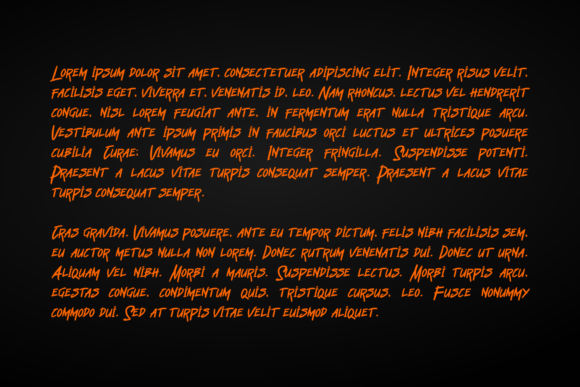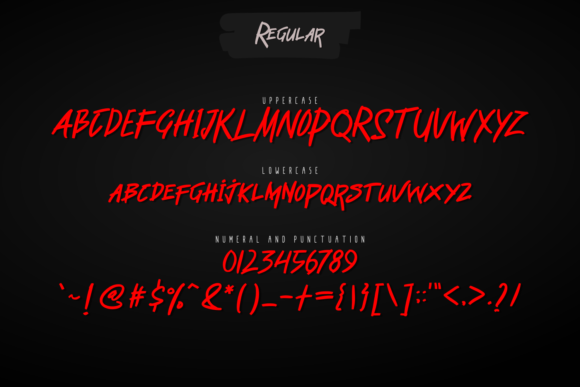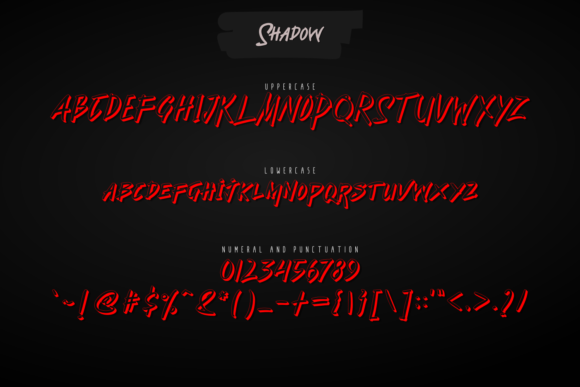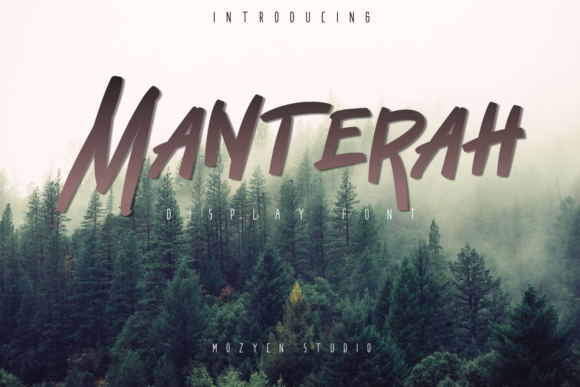
Introduction to Manterah Font
Manterah is a bold and authentic display font.
Add this font to your creative ideas and notice how it will make them stand out .
Why Choose Manterah Font?
Manterah Font offers exceptional quality and versatility, making it a valuable addition to your design toolkit. Whether you’re creating for personal projects or commercial use, Manterah Font delivers professional results.